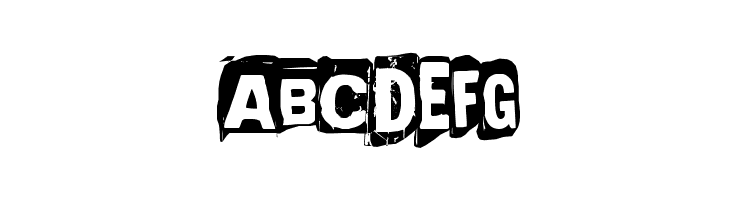
EmilyLimeWords Font
- Font: EmilyLimeWords
( Fonts by Kirk Shelton - www.kirkshelton.com )
A bold, playful font with a 3D effect and distressed texture, ideal for creative projects.